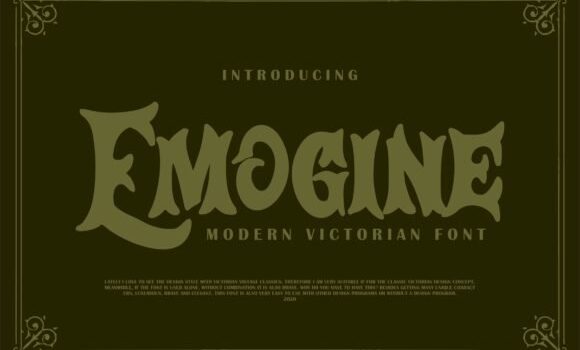
Emogine Font – Free Download Introduction to Emogine Font Emogine is a bold and chunky lettered display font. 📸 Preview Gallery 5 images 📌 Product Name Emogine Font 👤 Author Vunira 📂 Category Explore ⬇️ Download Emogine Font FREE Free